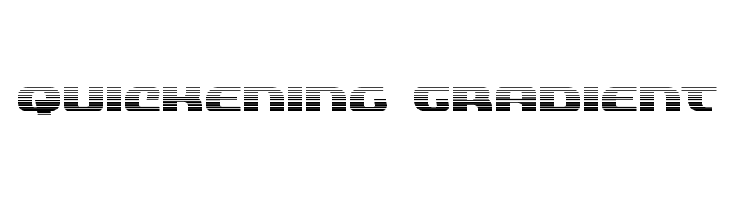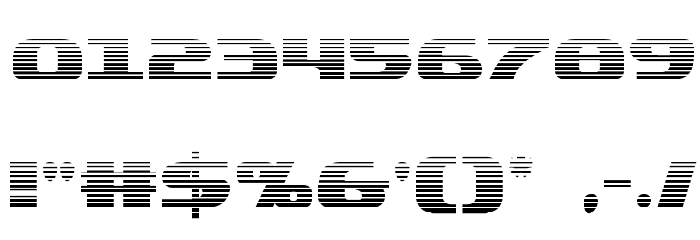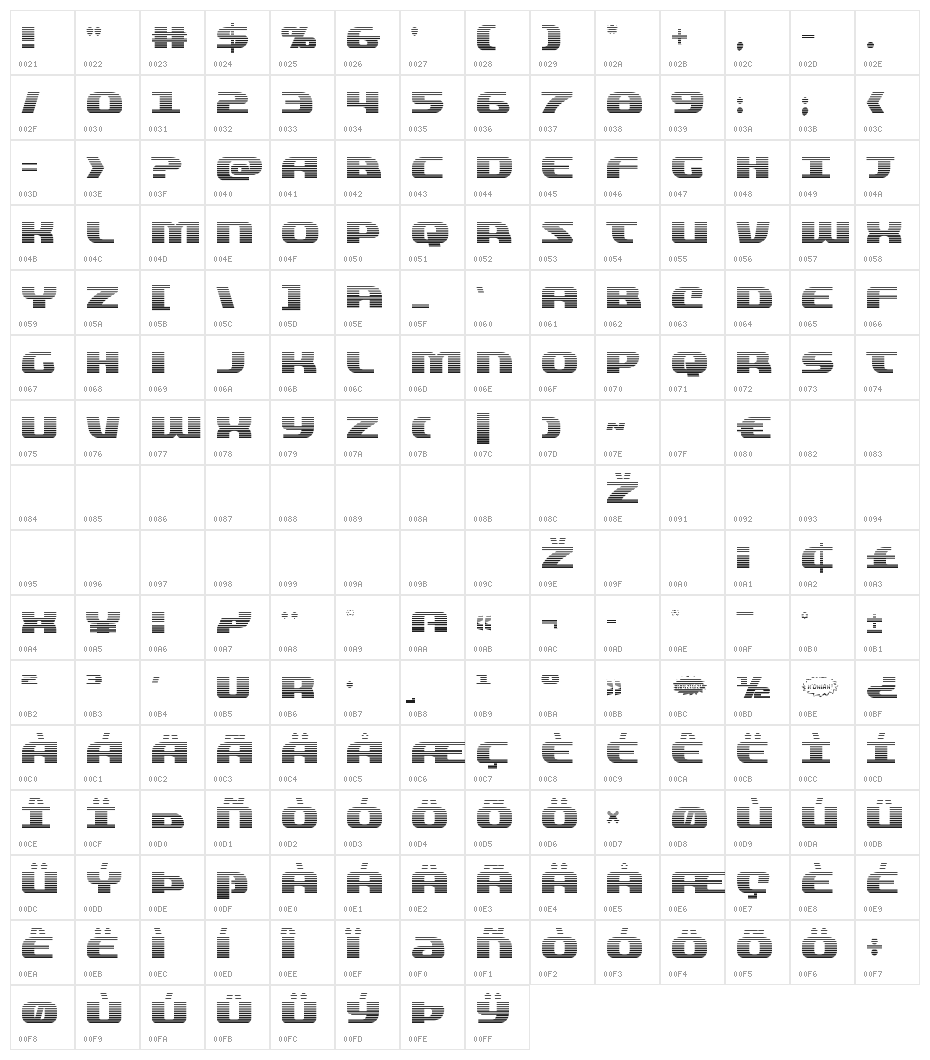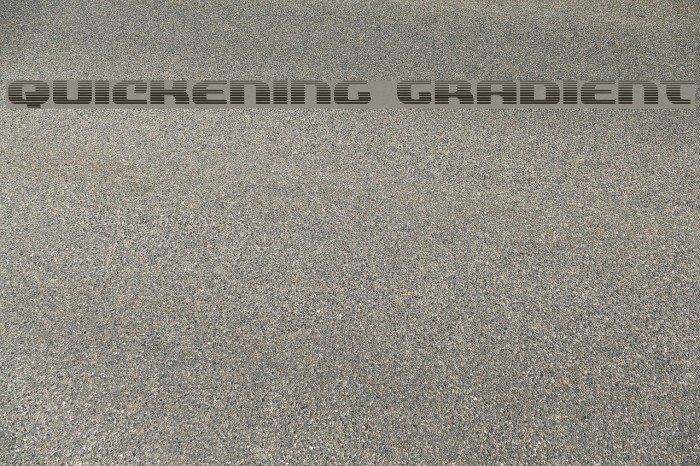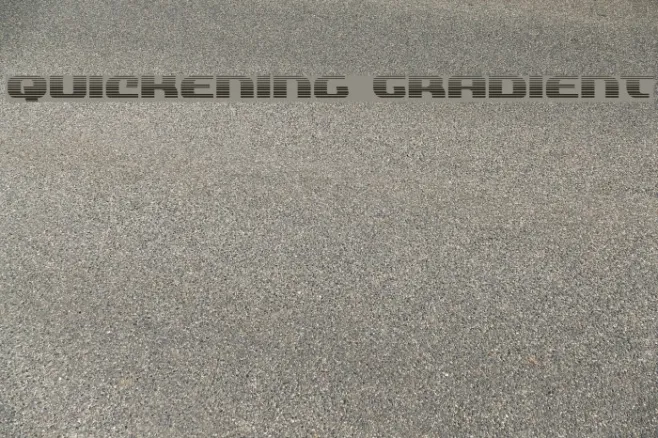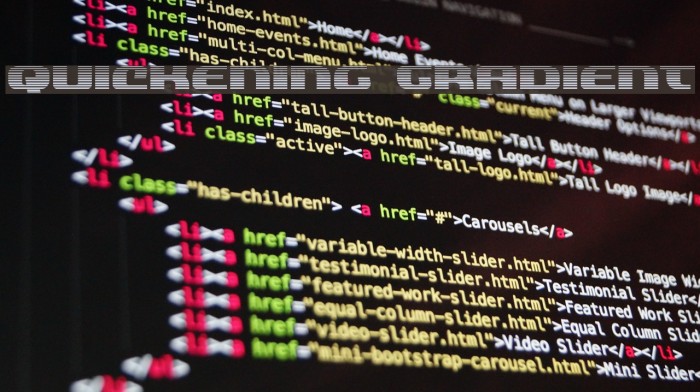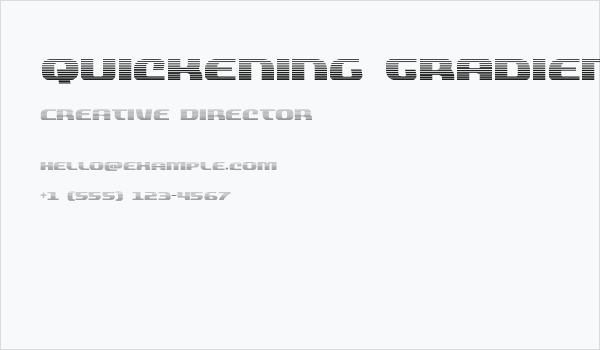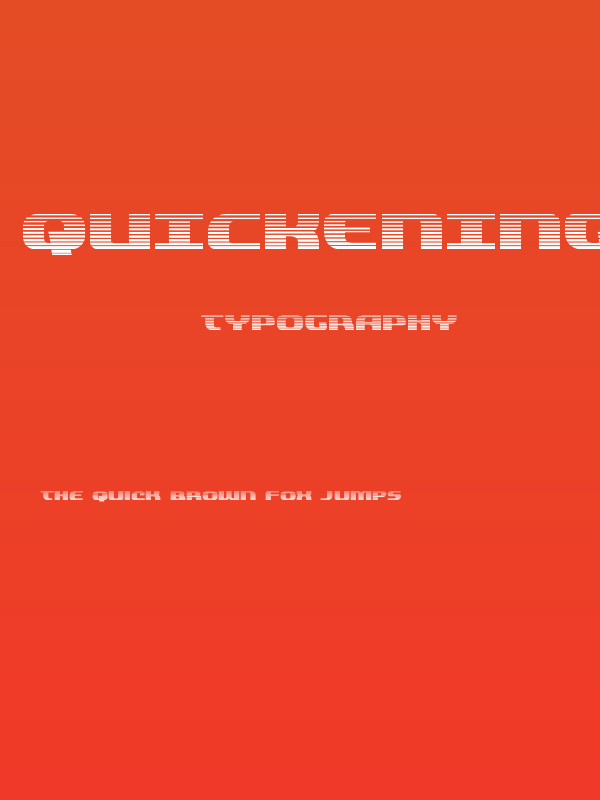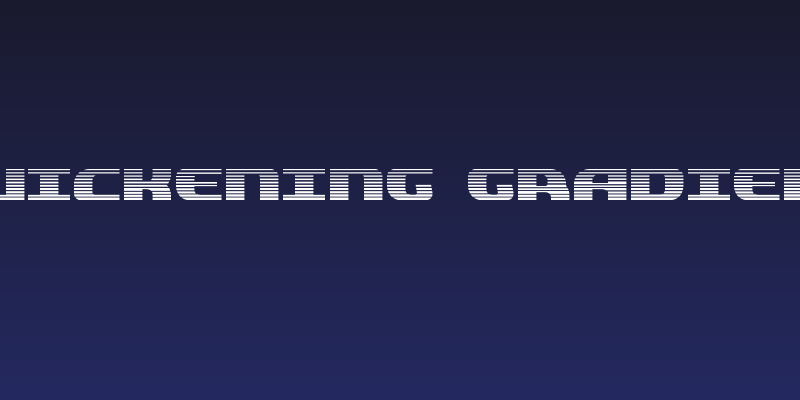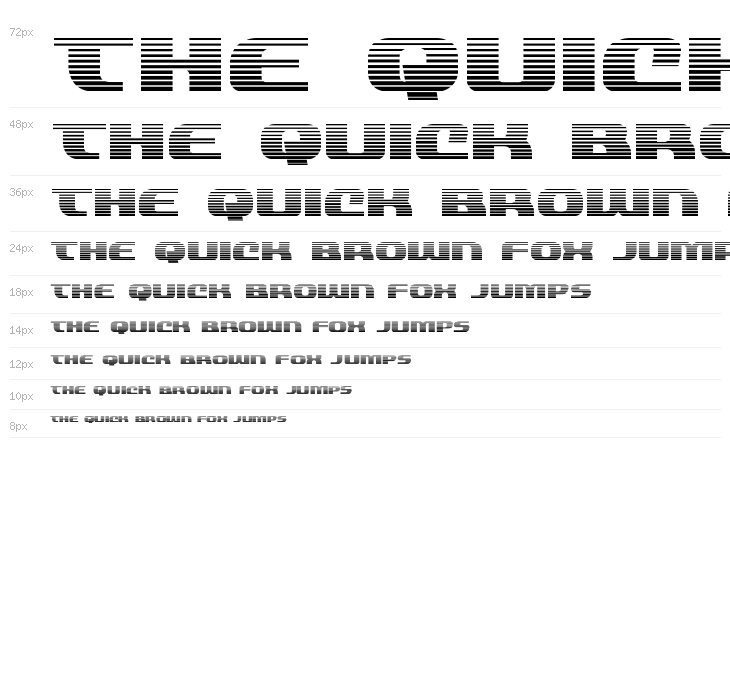
Quickening Gradient Font
Quickening Gradient Description
This font features a bold, futuristic design characterized by horizontal stripes that create a gradient effect across each character. The uppercase letters are particularly striking, with a strong geometric form that emphasizes their modern aesthetic. The lowercase letters maintain this style, offering a cohesive look throughout the typeface. Numbers and special characters are designed with the same attention to detail, ensuring consistency. The overall appearance is dynamic and eye-catching, making it suitable for projects that require a modern and innovative touch.
| Proposed Projects | Ideal for technology branding, sci-fi movie posters, video game titles, and modern advertising campaigns. |